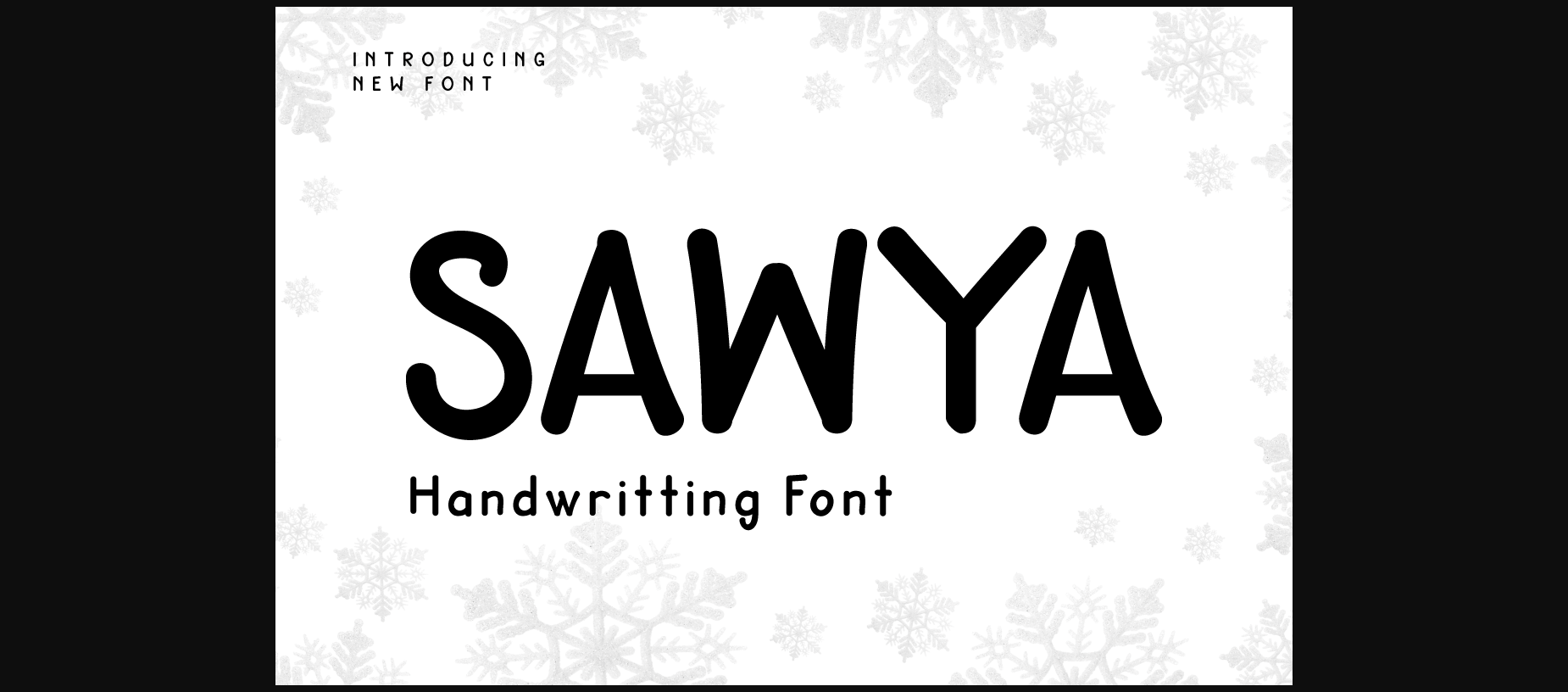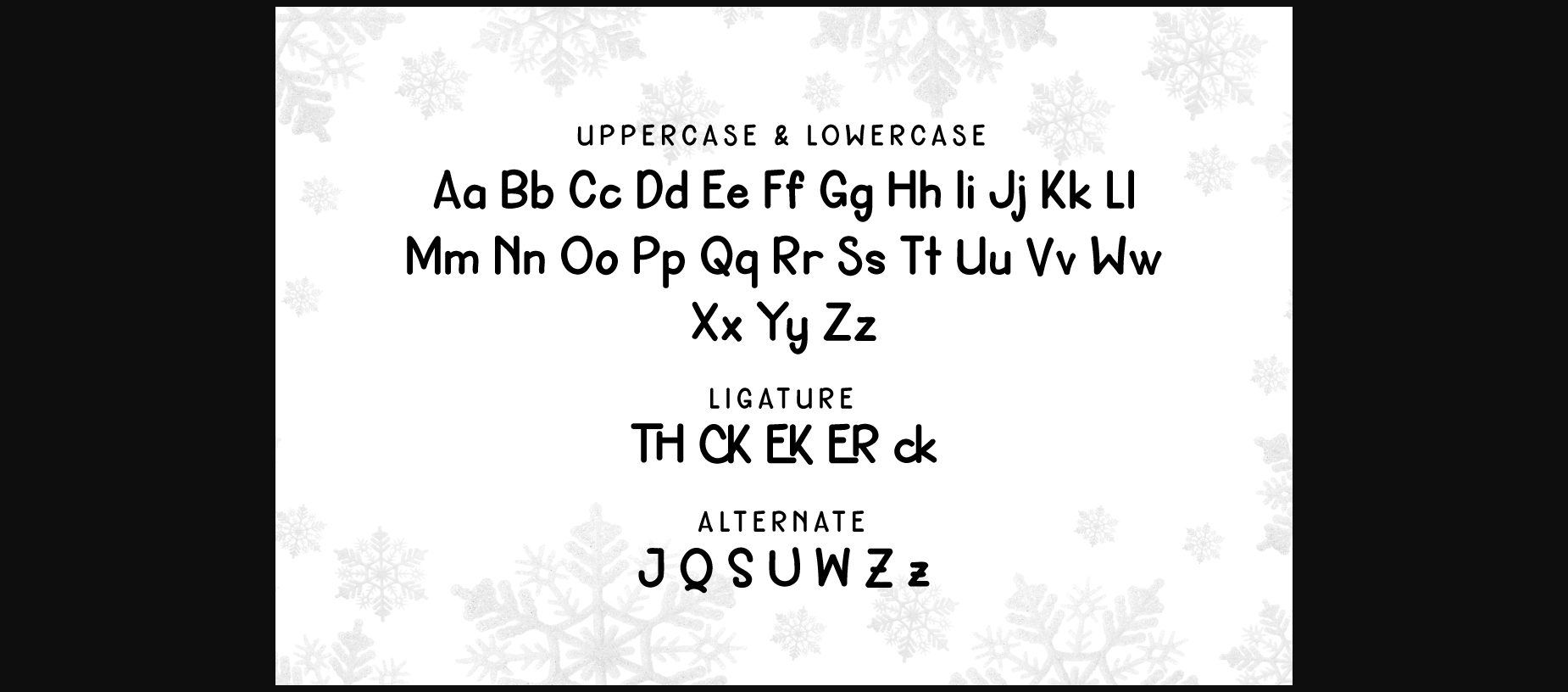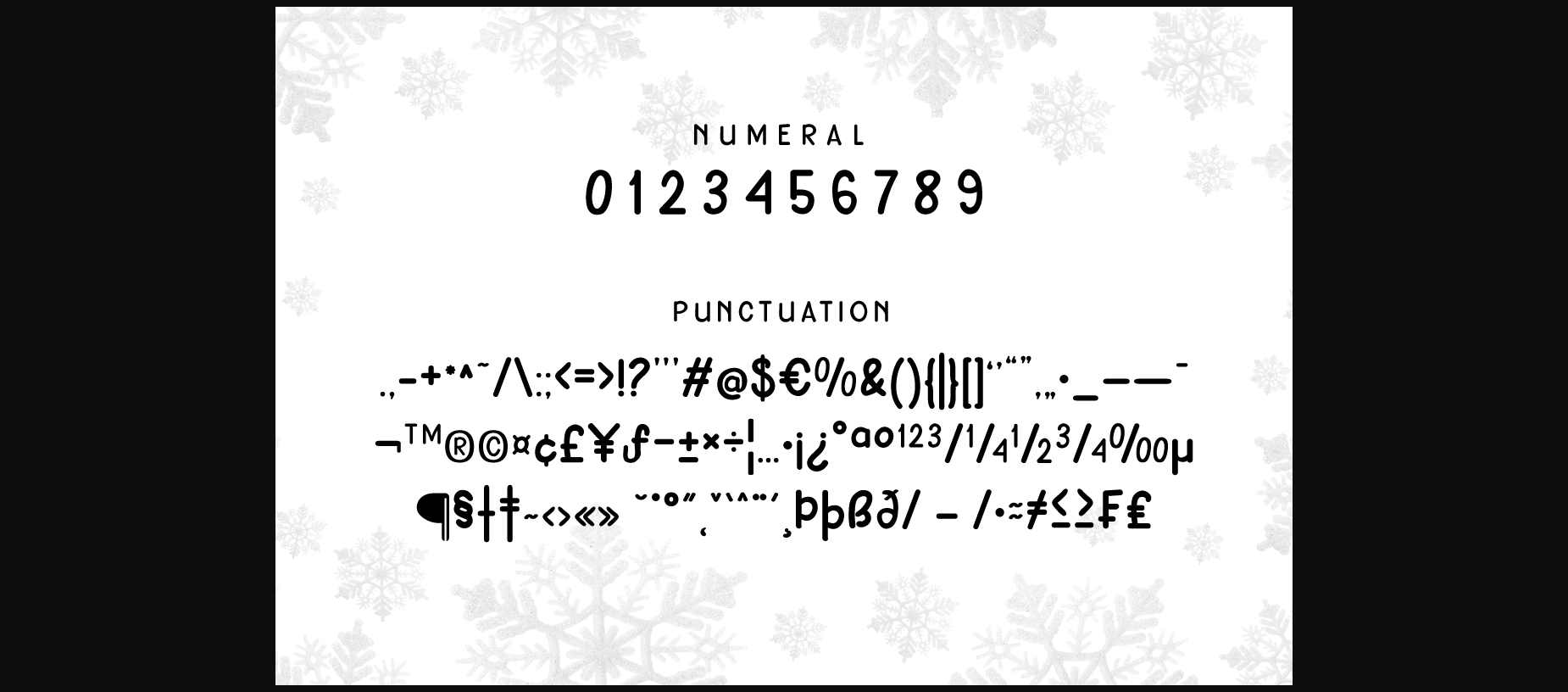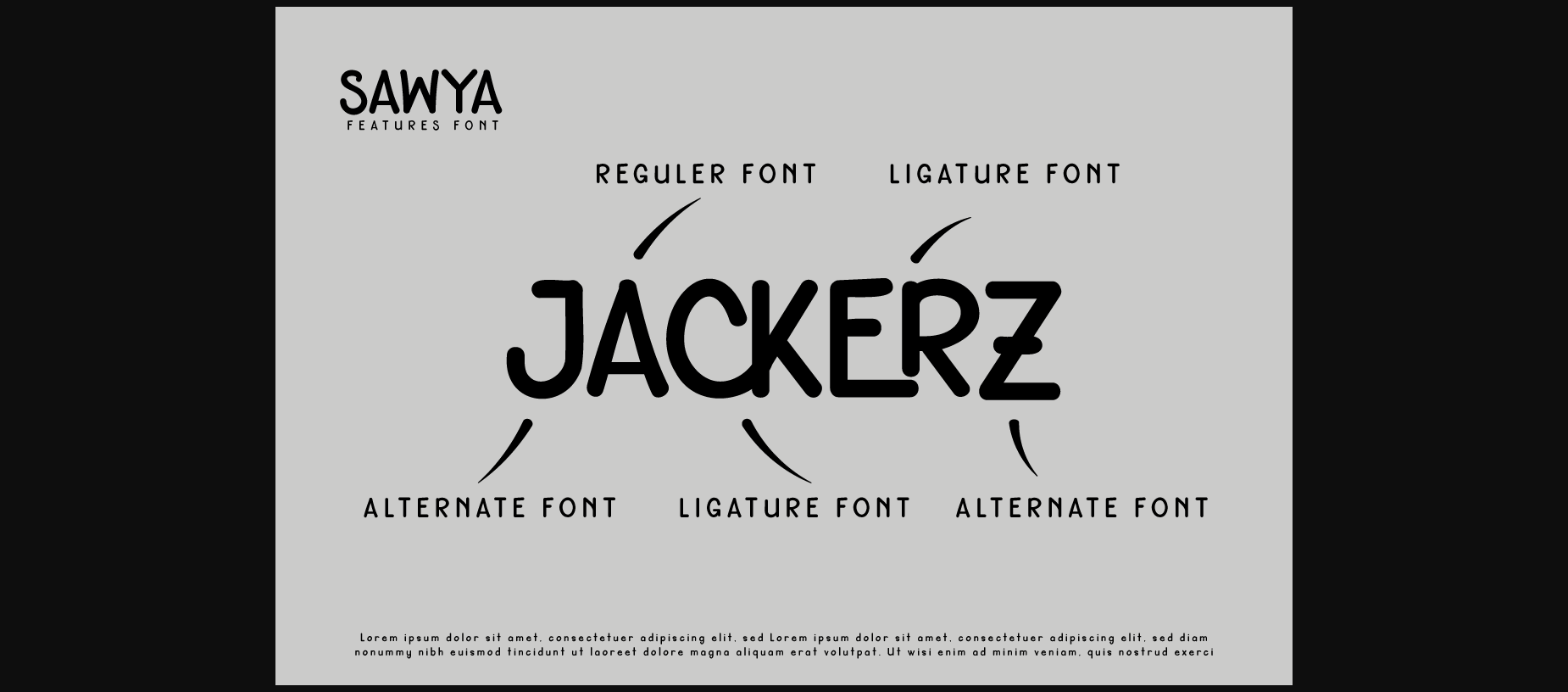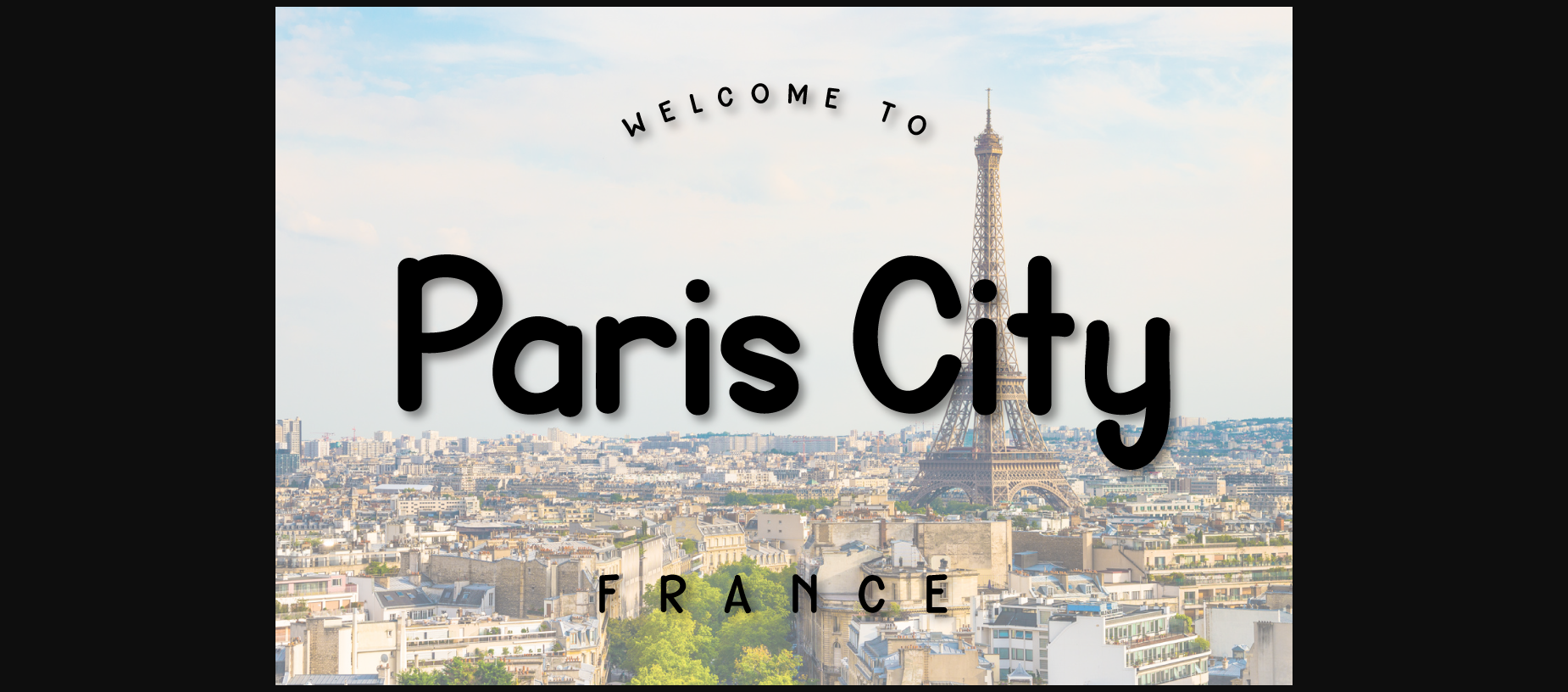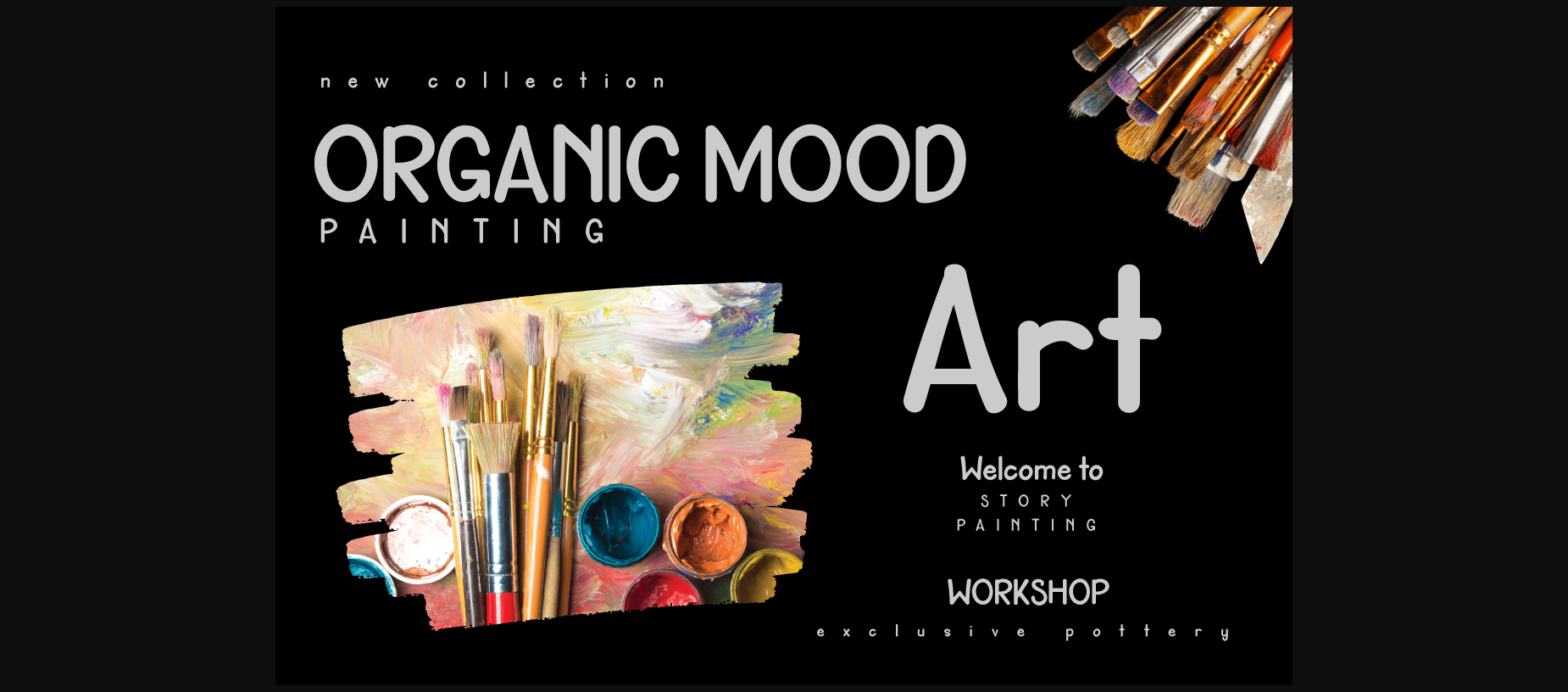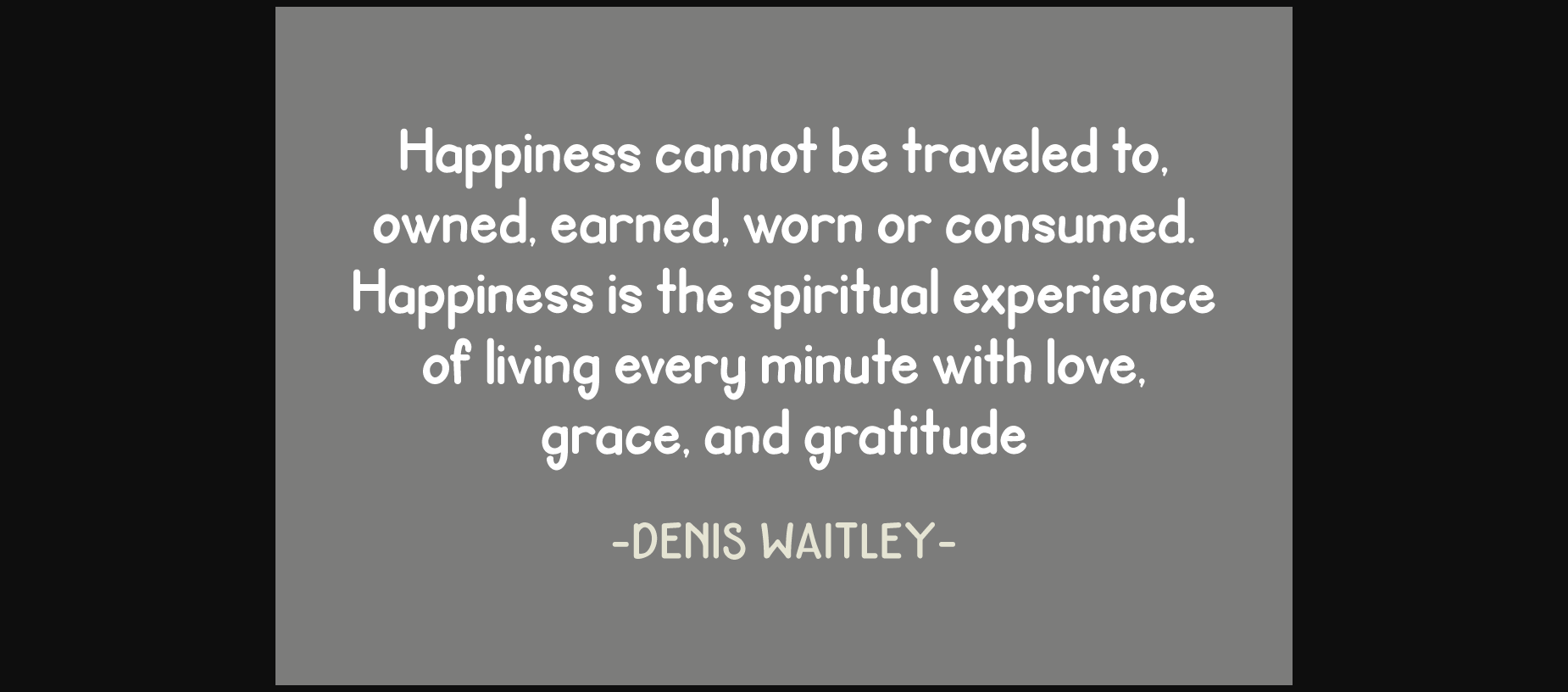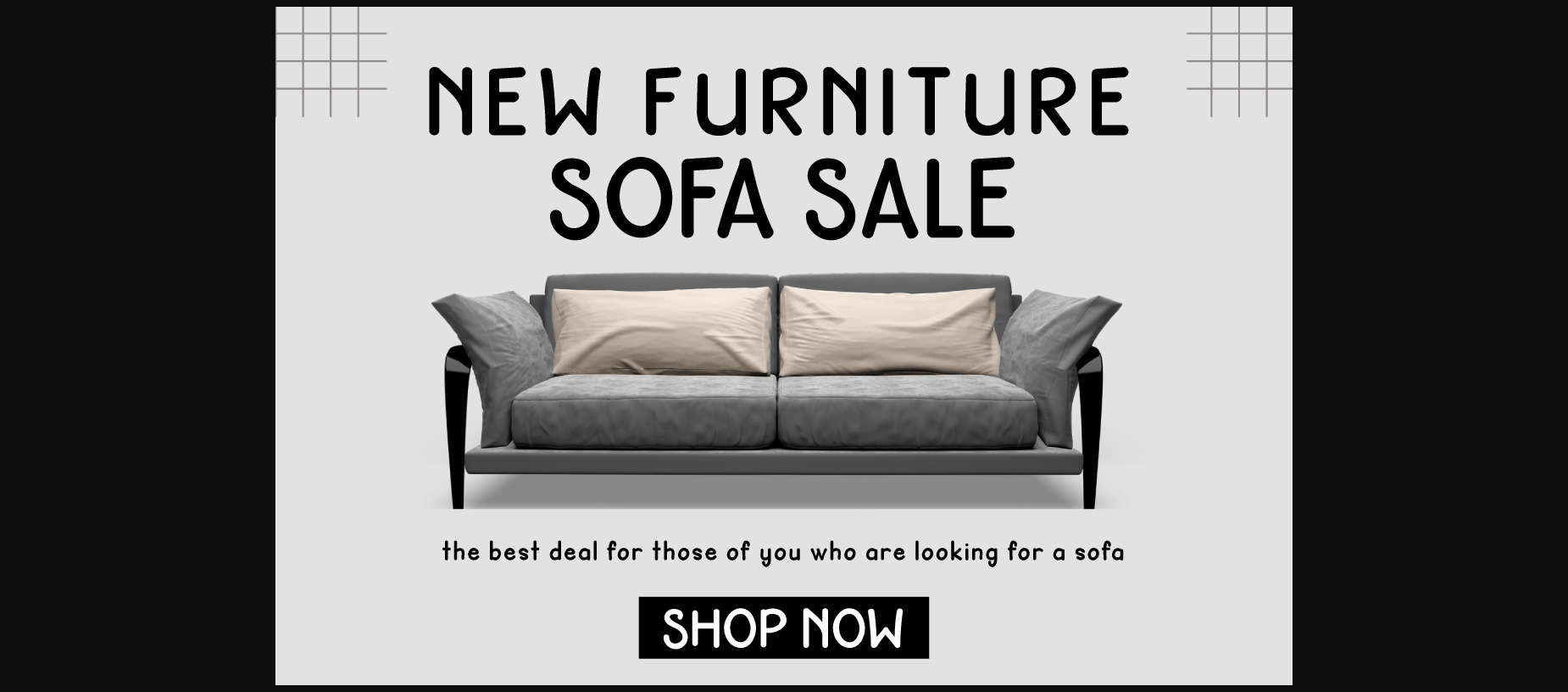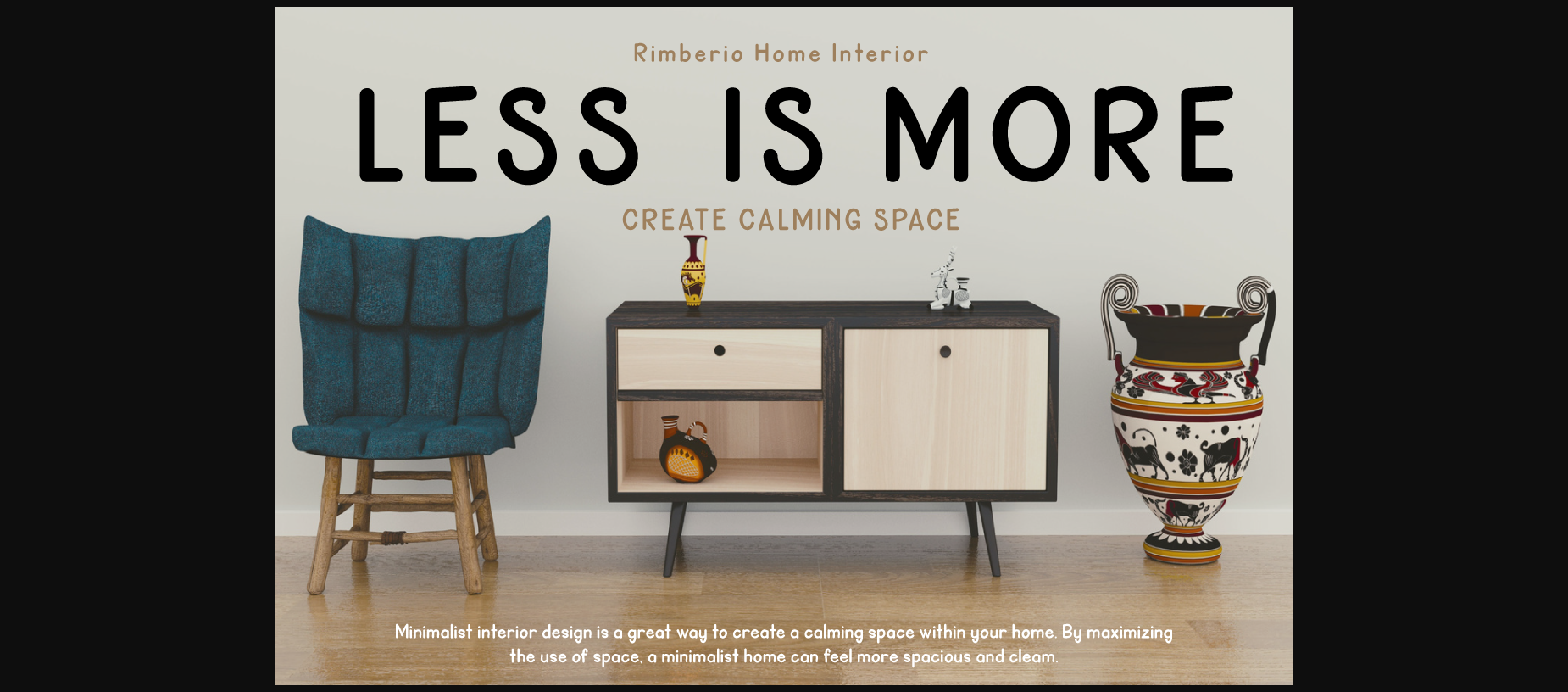
Sawya Font
Introducing SAWYA Font – a captivating display typeface that effortlessly embodies the authenticity of handwriting! Elevate your projects with the artistic touch of SAWYA, a seamless blend of style and individuality. Meticulously designed, this typeface adds a distinctive charm to diverse design projects, ranging from invitations to branding materials. With its fluid ligatures and alternate characters, SAWYA empowers you to craft unique compositions with ease. Overcome language barriers effortlessly, making this font an adaptable choice for seamless communication across cultures. Embrace the creative potential of SAWYA Font and redefine your designs with the grace of handwritten artistry. Explore SAWYA today to witness your creative visions come alive!